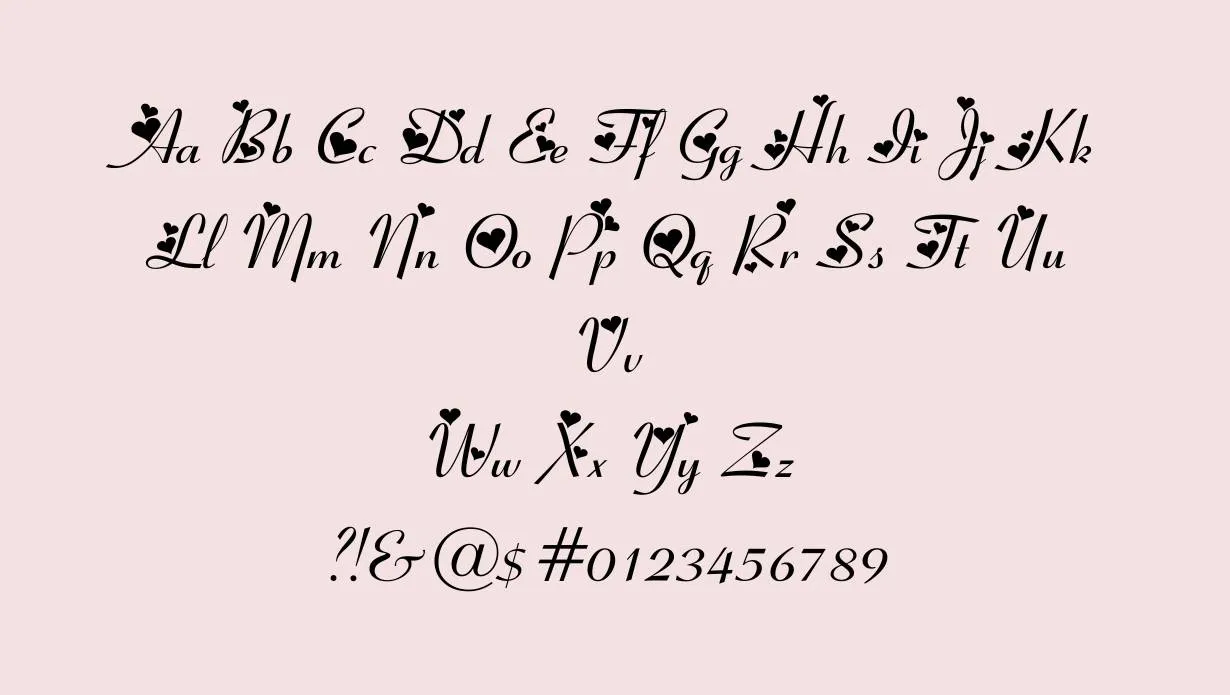
Fiolex Girls Font is a whimsical and playful typeface with a feminine touch. This font is designed by Fiolex Software and it is a fancy font. It’s perfect for designs targeting a young and creative audience.
It was created with 211 defined characters and 185 amazing glyphs. This font is ideal for children’s books, crafting, and materials where a cheerful and imaginative font is desired.